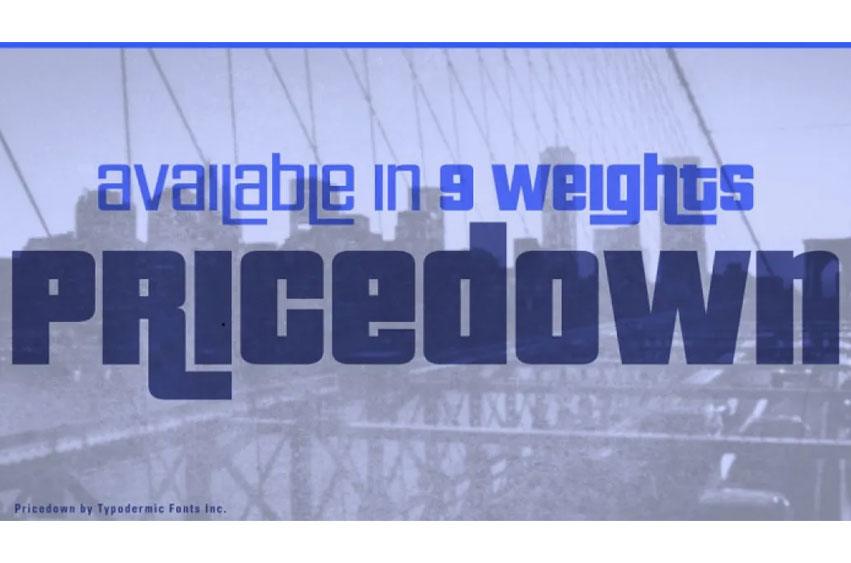
Pricedown Font
Pricedown Font Display Font is one of the early display fonts first released in the year 2000 and has since been revised and expanded on one other occasion. One can switch off the tails effect by turning off ligatures within the application; additional language support has also been added in the recent past such as Vietnamese, Greek and Cyrillic. There is what is referred to as the desktop license which is an open license that permits the use of fonts for commercial purposes for free.